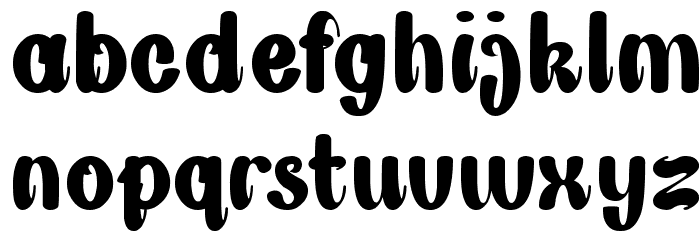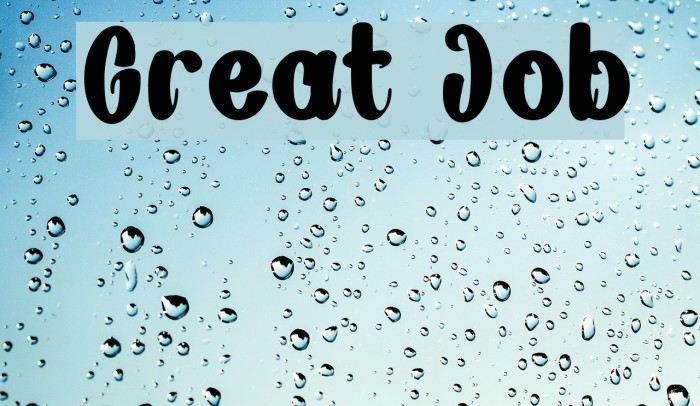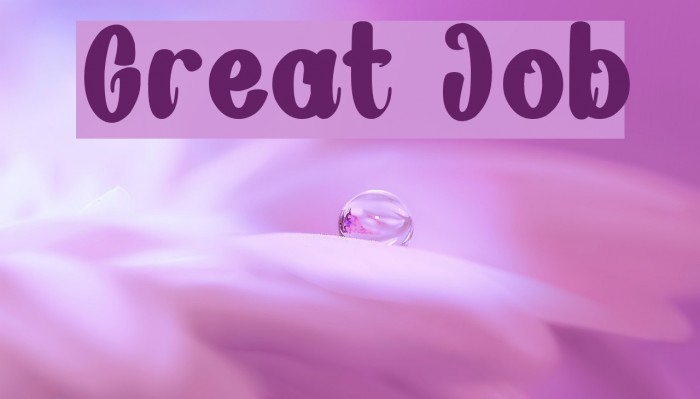
Great Job Font
This font features a bold and playful design with a strong presence. The characters are rounded and have a whimsical flair, making them stand out with their unique style. The uppercase letters are particularly striking, with exaggerated curves and a sense of movement. The lowercase letters maintain the same playful aesthetic, ensuring consistency throughout the typeface. The numbers and special characters are designed to match the overall style, providing a cohesive look. This font is ideal for projects that require a fun and engaging visual impact.
A bold, playful font with rounded, whimsical characters.
- Proposed Projects: Ideal for children's books, playful branding, event invitations, and creative posters.
- Overall Style: Playful, Whimsical